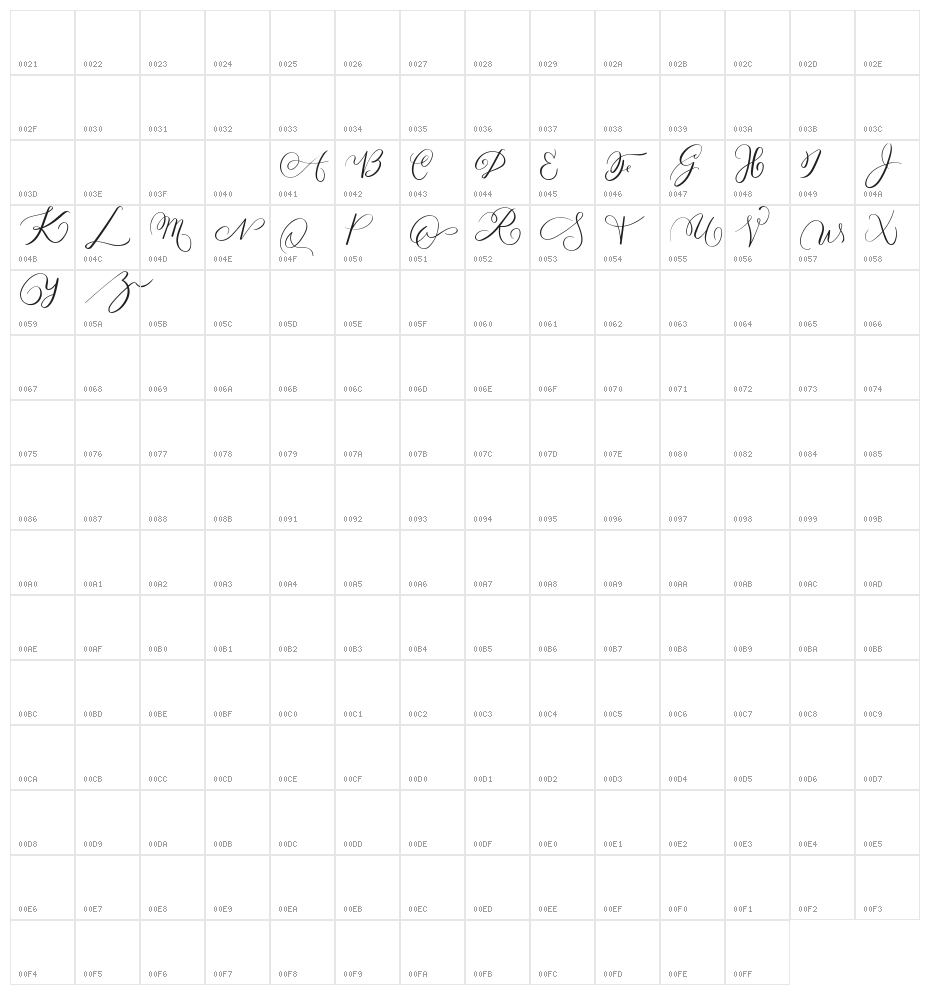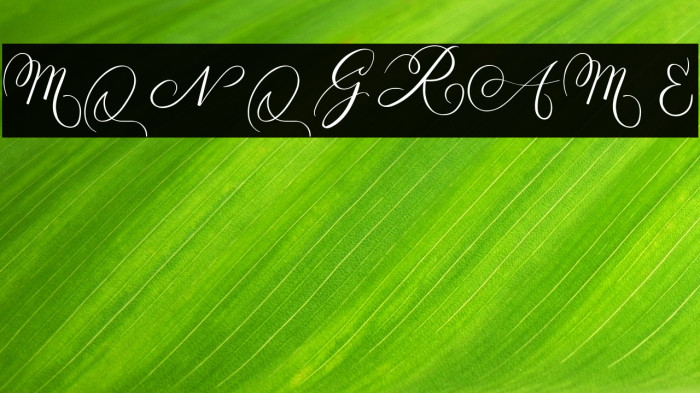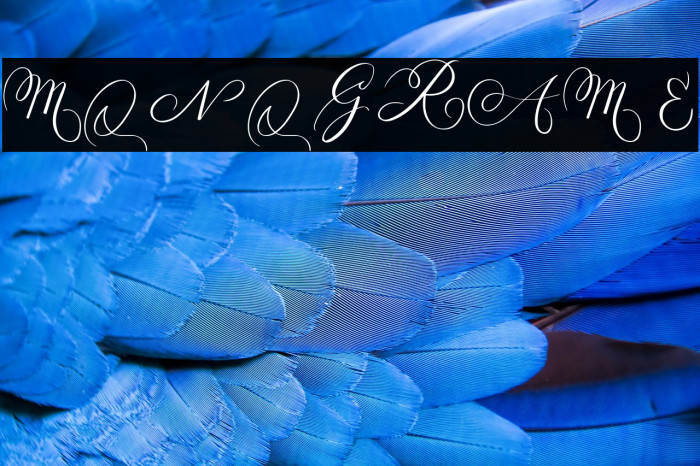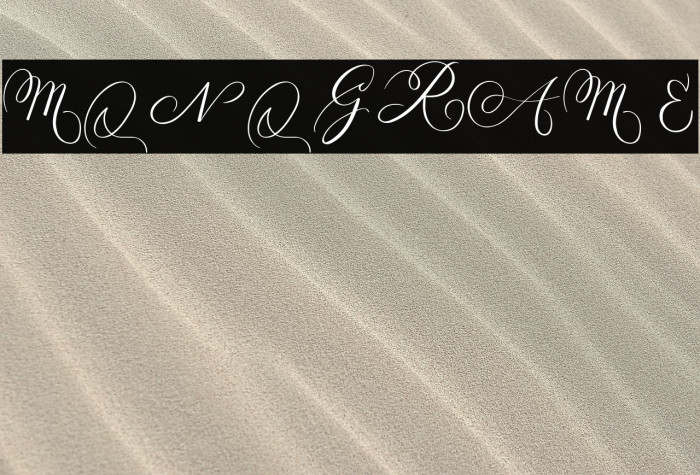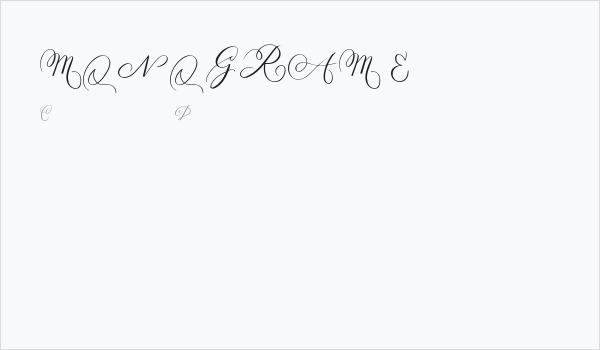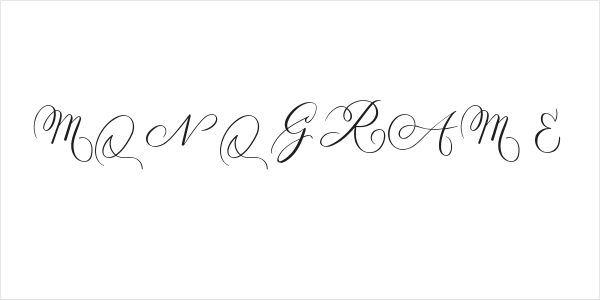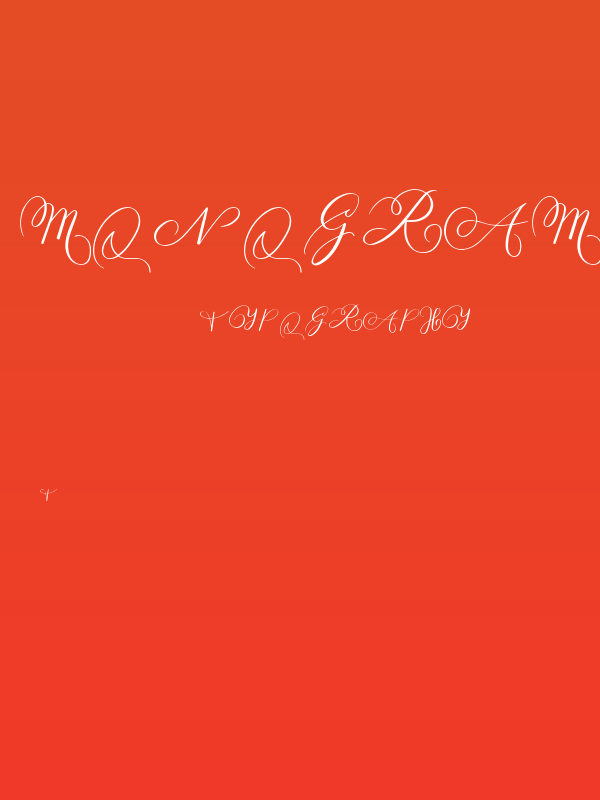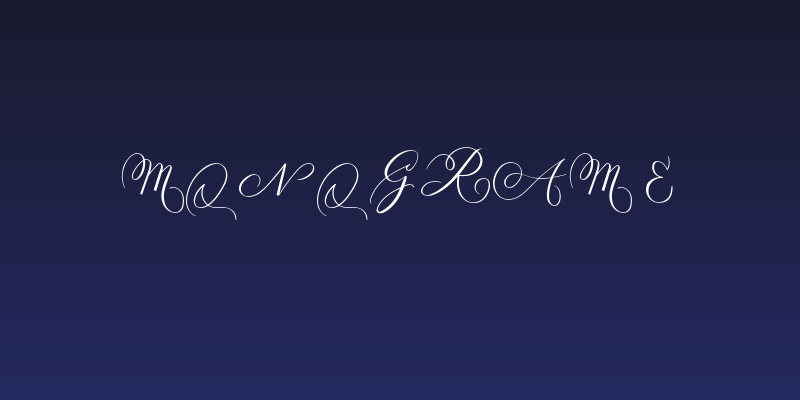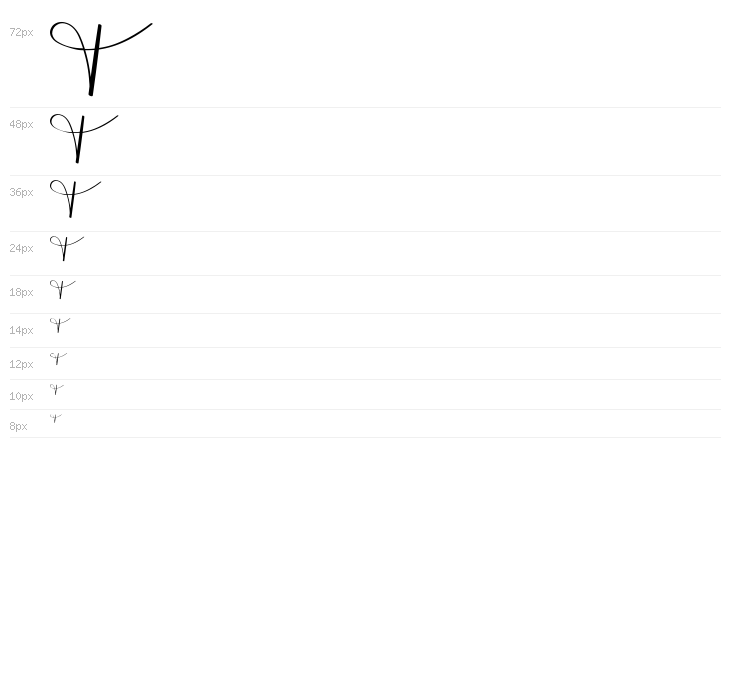
MONOGRAM E Font
MONOGRAM E Description
This elegant script font features intricate, flowing lines and a sophisticated style. Each letter is adorned with delicate swirls and flourishes, creating a sense of movement and grace. The uppercase letters are particularly ornate, with loops and curves that extend beyond the main body of the character. The lowercase letters maintain a consistent style, complementing the uppercase with their own subtle embellishments. This font is ideal for creating a luxurious and refined aesthetic, perfect for formal invitations, branding, and decorative purposes. Its artistic flair and attention to detail make it a standout choice for projects that require a touch of elegance and sophistication.
| Use Case | Logos, Invitations, Decorative Text |
| Proposed Projects | Ideal for wedding invitations, luxury branding, decorative monograms, and elegant stationery. |